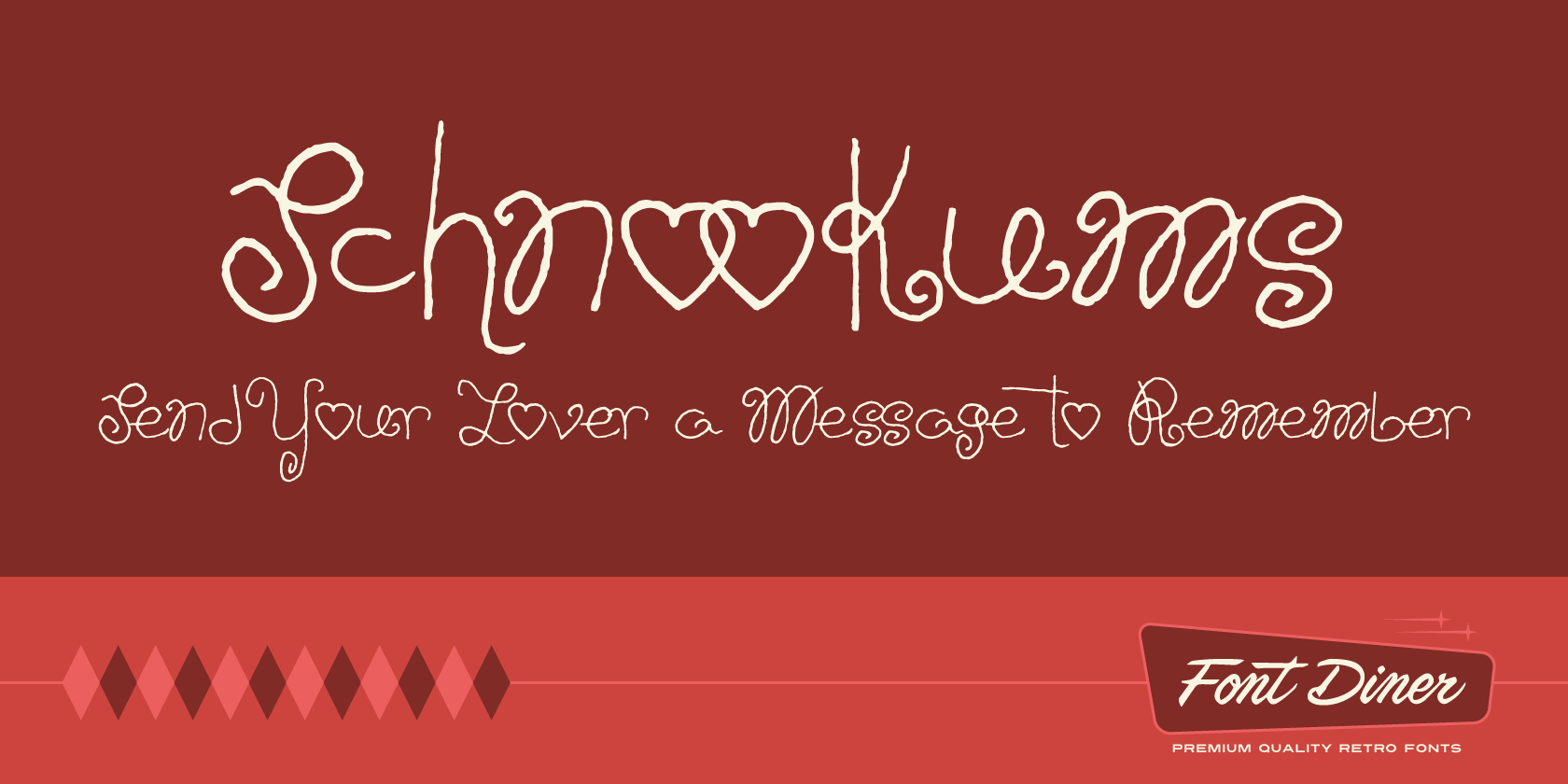
Enjoy some freshly baked with love from the Font Diner with Schnookums! Like a full box o’ valentines, nothing could be dripping with more sweetness than this font! XOXOXOXO
Schnookums Font
Schnookums